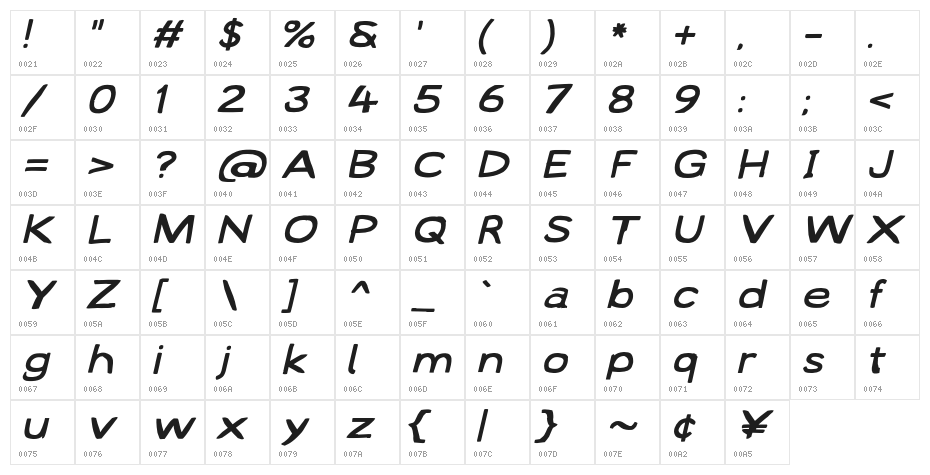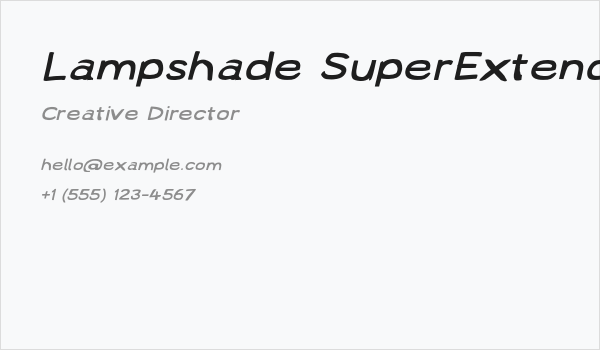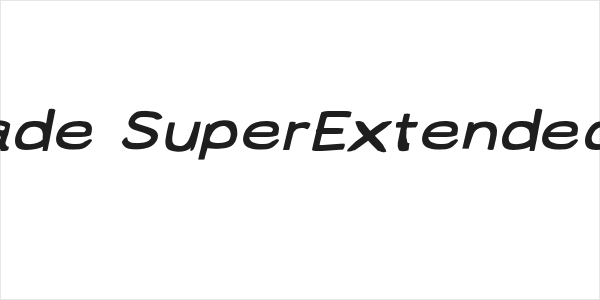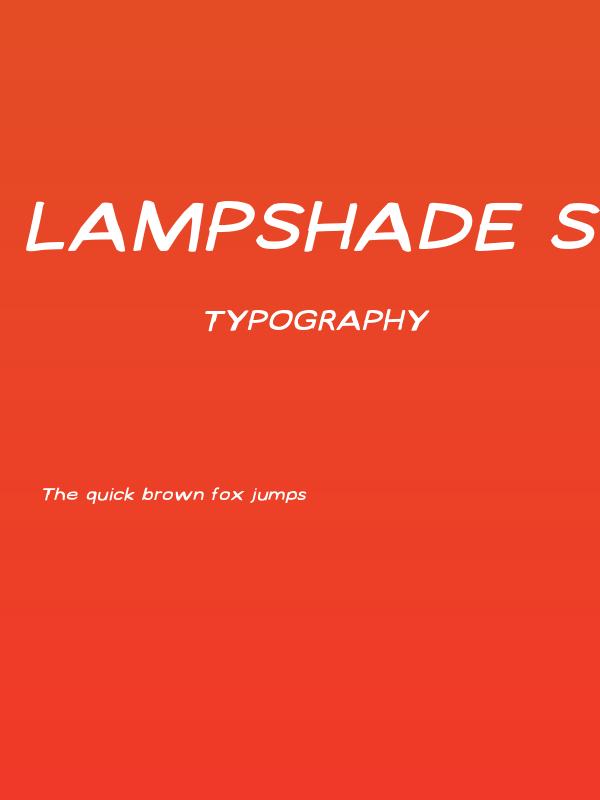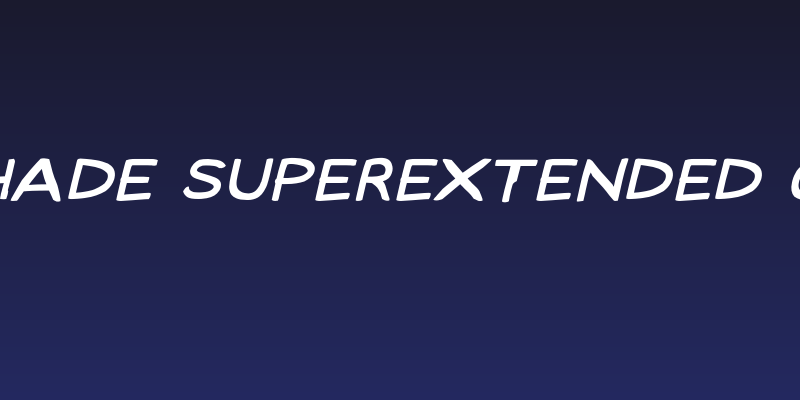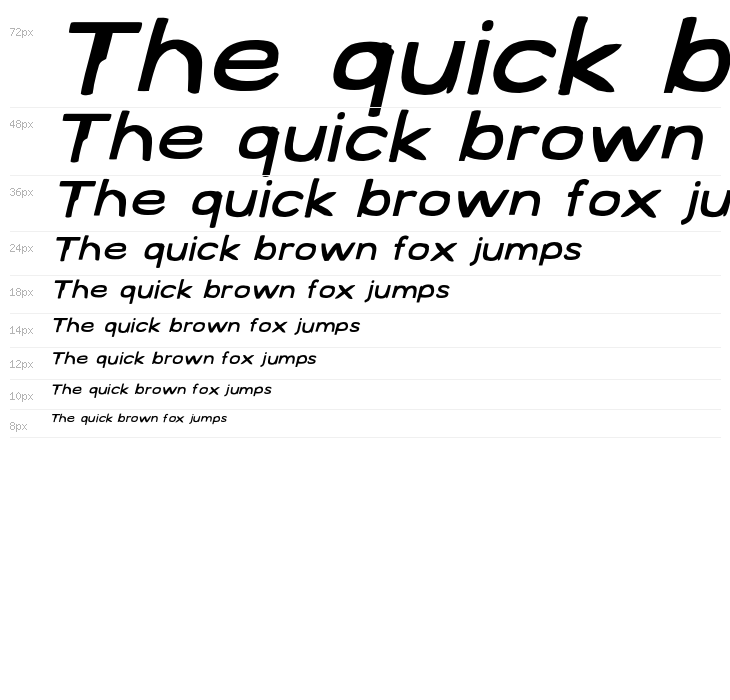
Lampshade SuperExtended Oblique Font
Lampshade SuperExtended Oblique Description
This font features a dynamic and energetic style with an oblique orientation, giving it a sense of motion and fluidity. The characters are super extended, providing a wide and spacious appearance that enhances readability while maintaining a unique aesthetic. The strokes are smooth and consistent, with a slight slant that adds a modern touch. The numerals and special characters are designed to match the overall style, ensuring a cohesive look across all text elements. This font is ideal for projects that require a bold and contemporary feel.
| Use Case | Headlines, Logos, Advertising |
| Proposed Projects | Ideal for branding, advertising, and editorial design projects that require a bold and modern look. |